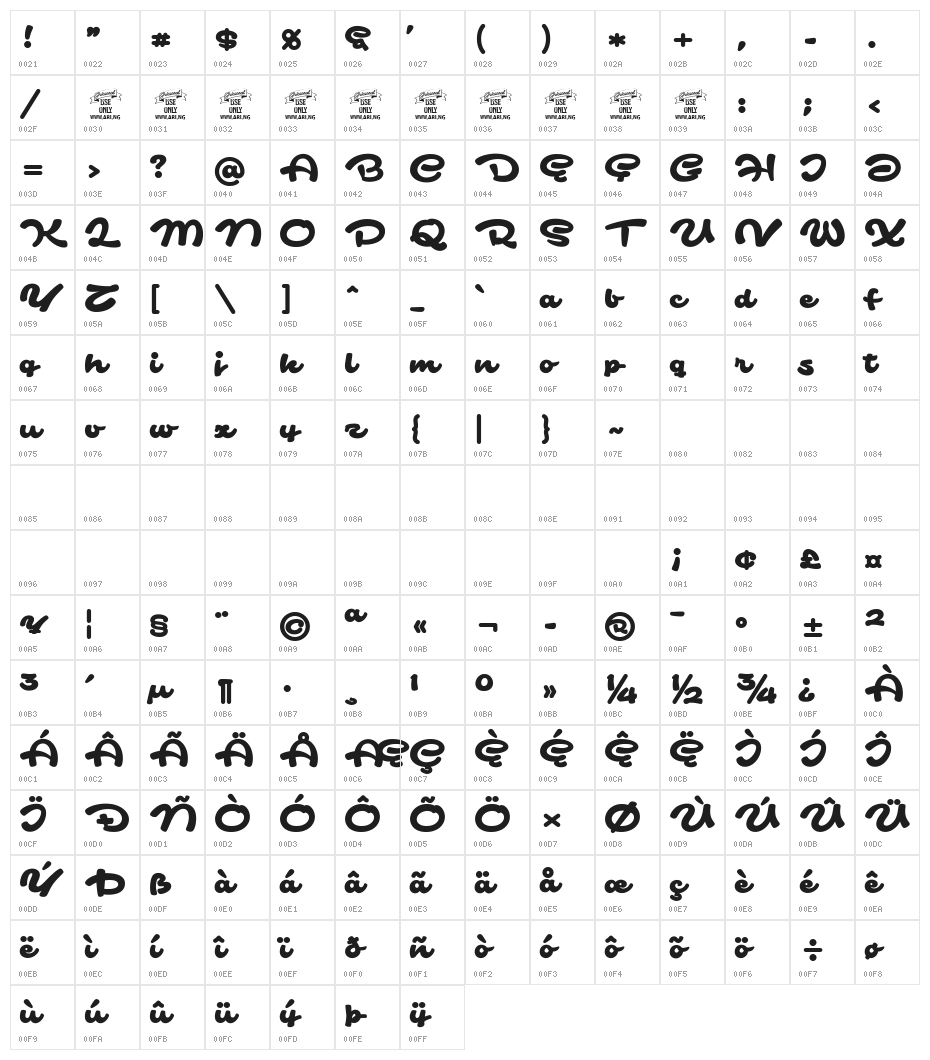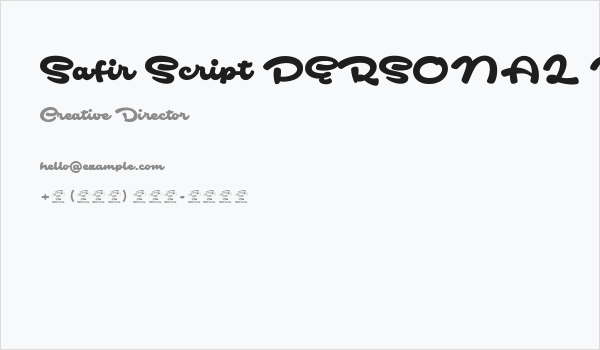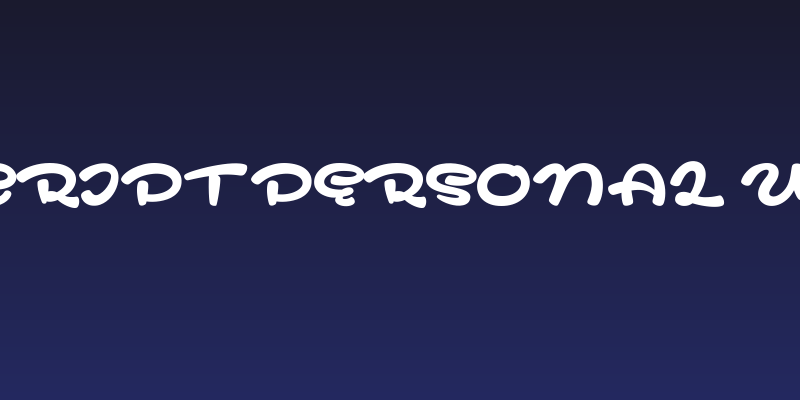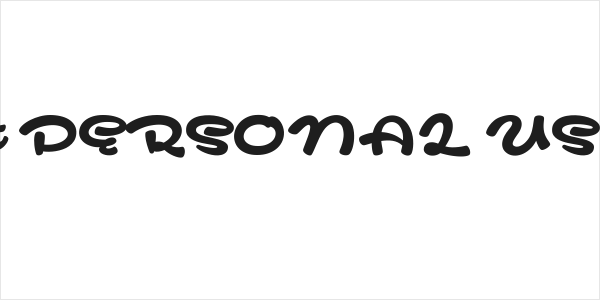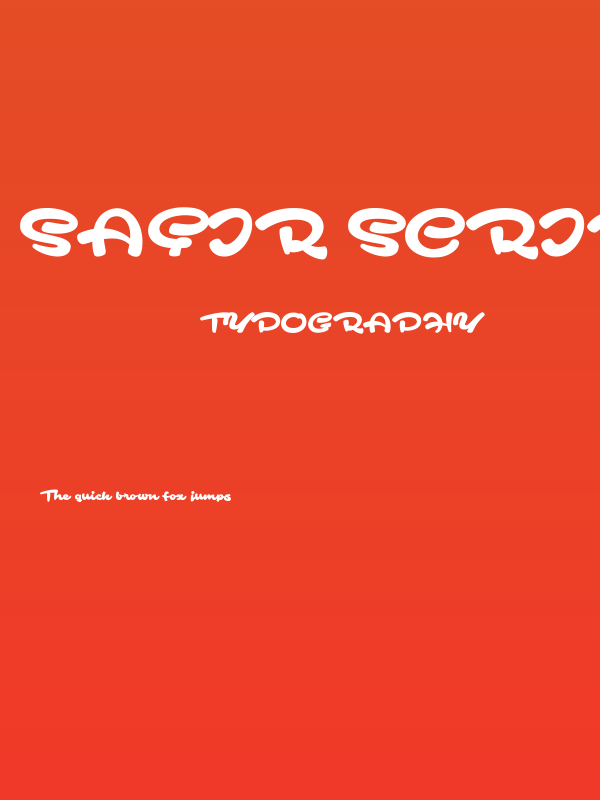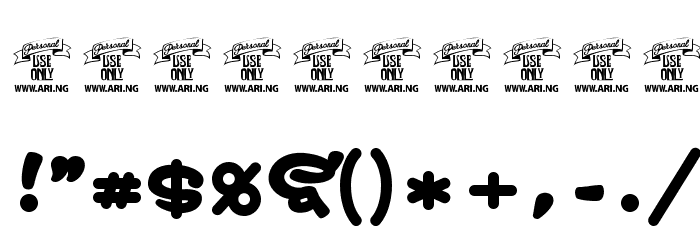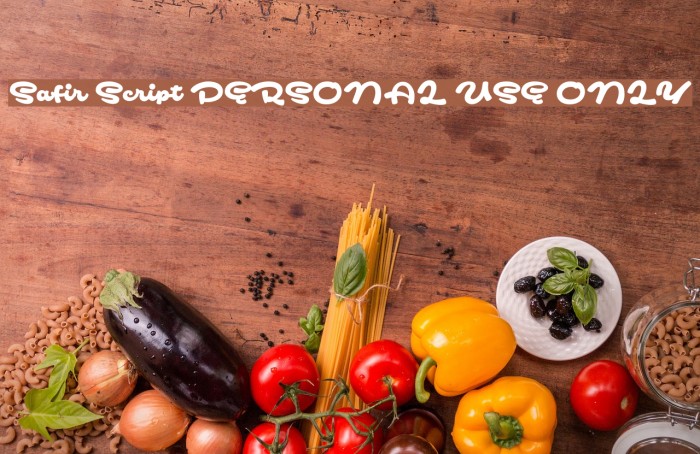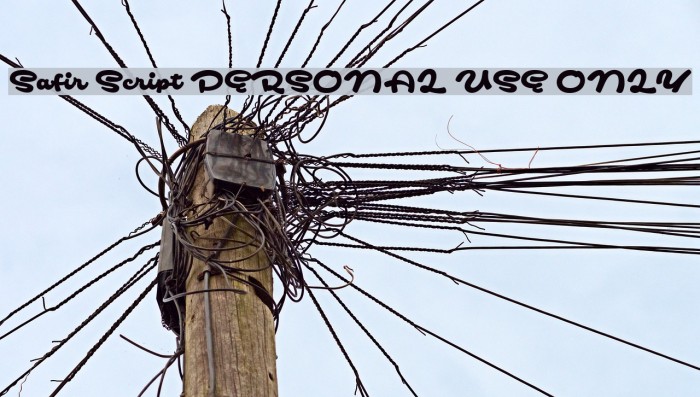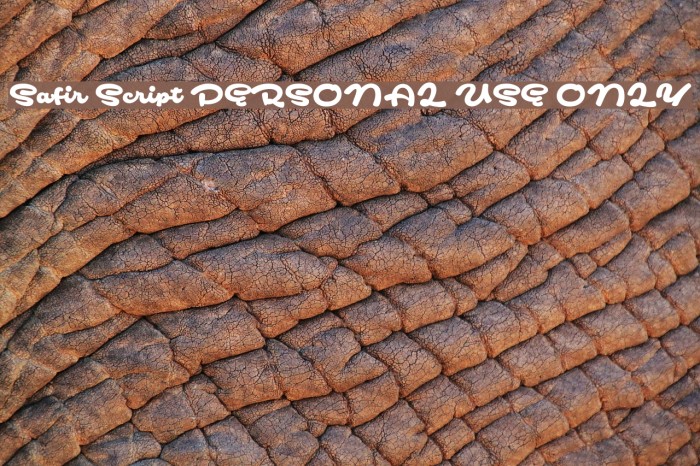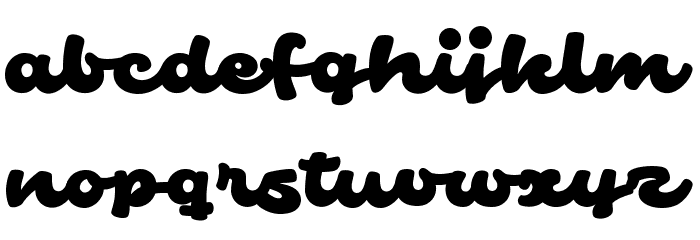
Safir Script PERSONAL USE ONLY Font
| Caso de uso | Logos, Invitations, Greeting cards |
| Proyectos propuestos | Ideal for invitations, greeting cards, logos, and branding materials that require a personal and artistic touch. |